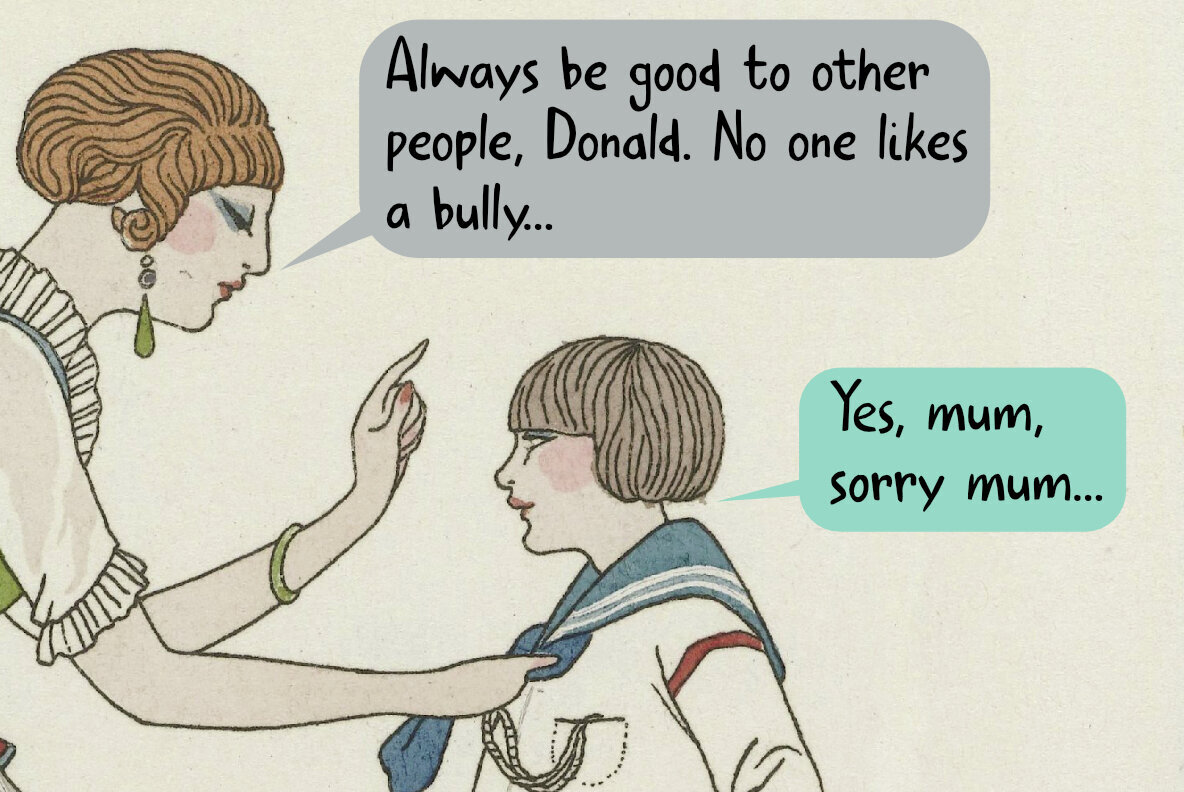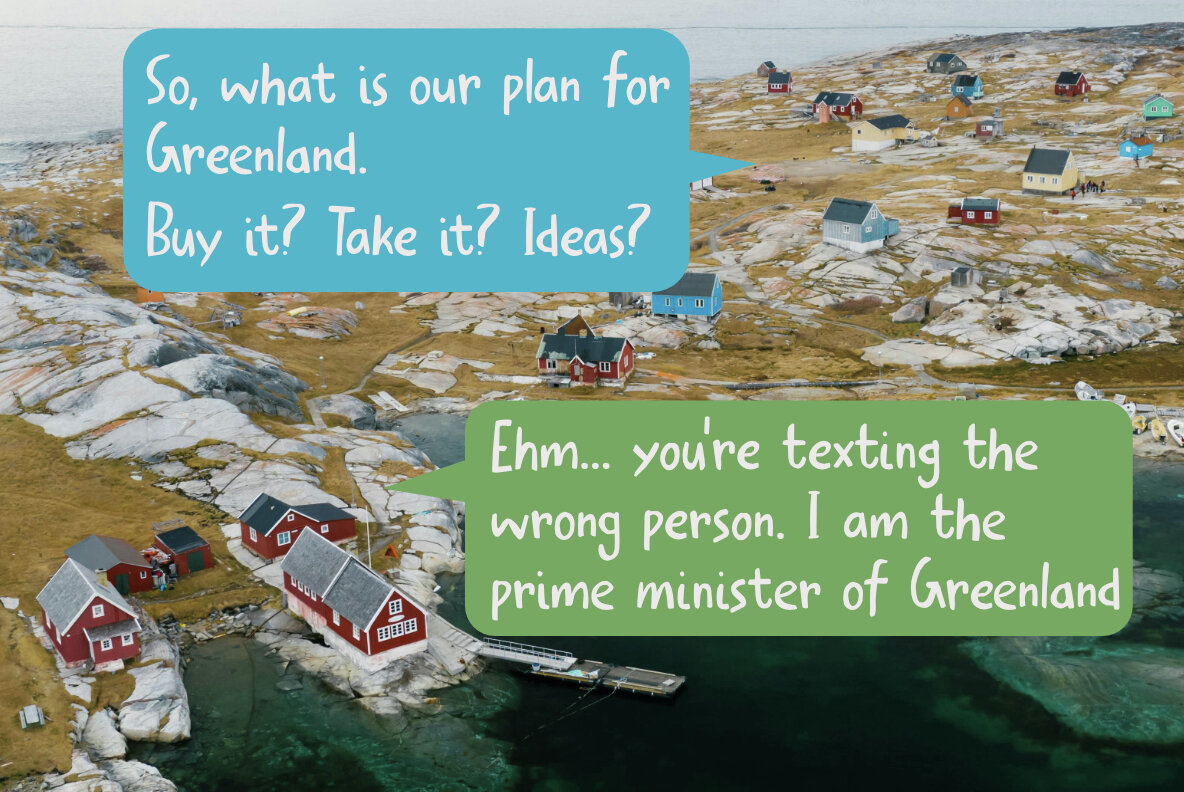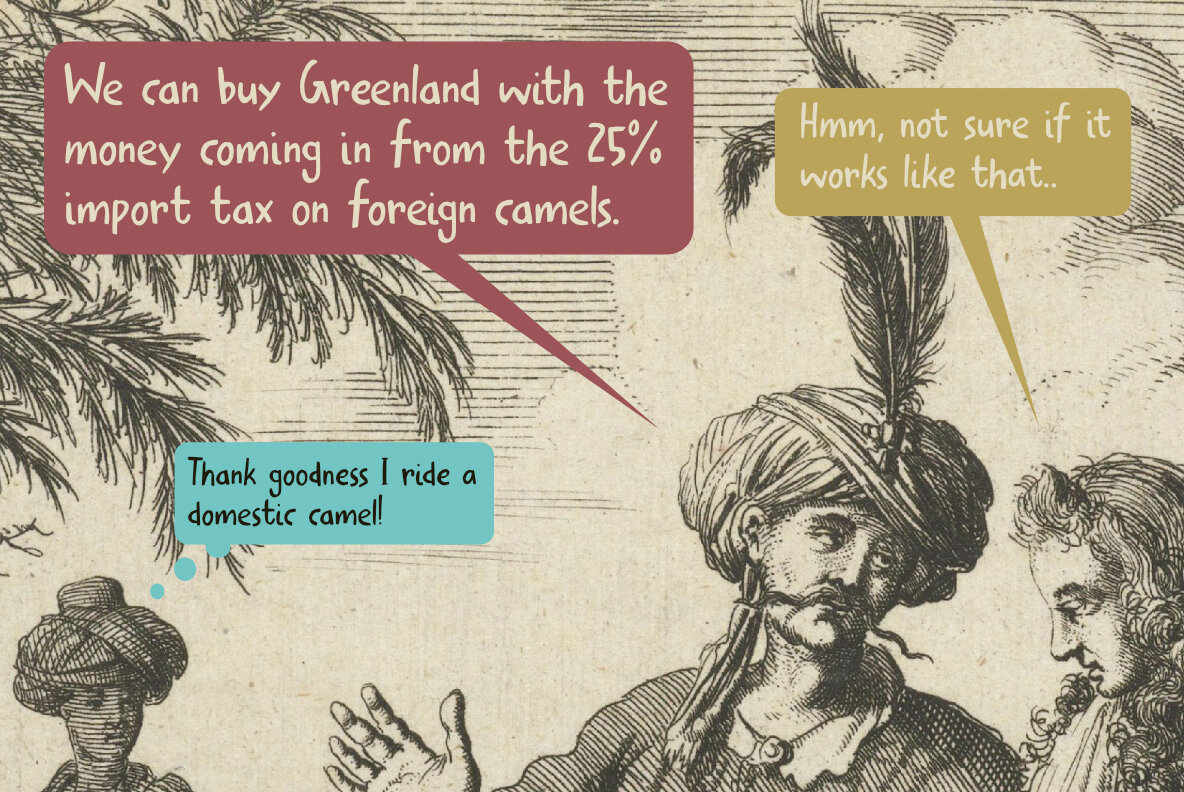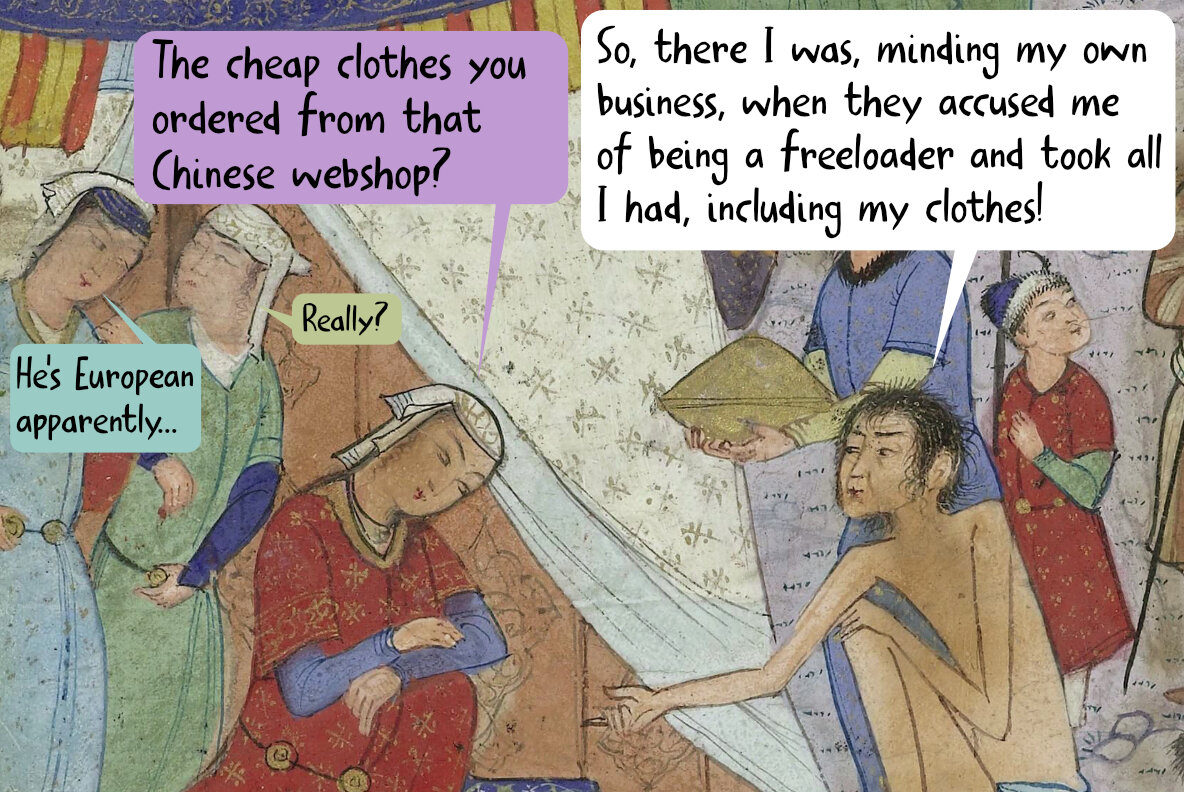
Crossed Signals Font
Inject a dose of humor into your projects with Crossed Signals, a font designed to lighten the mood in challenging times. Drawn from unusual recent events, this font embodies a delightful sloppiness that adds character to comic books and satirical publications. Whether you're crafting a quirky headline or an amusing illustration, Crossed Signals brings a touch of whimsy to your work.Crossed Signals: Embrace the Quirky Side